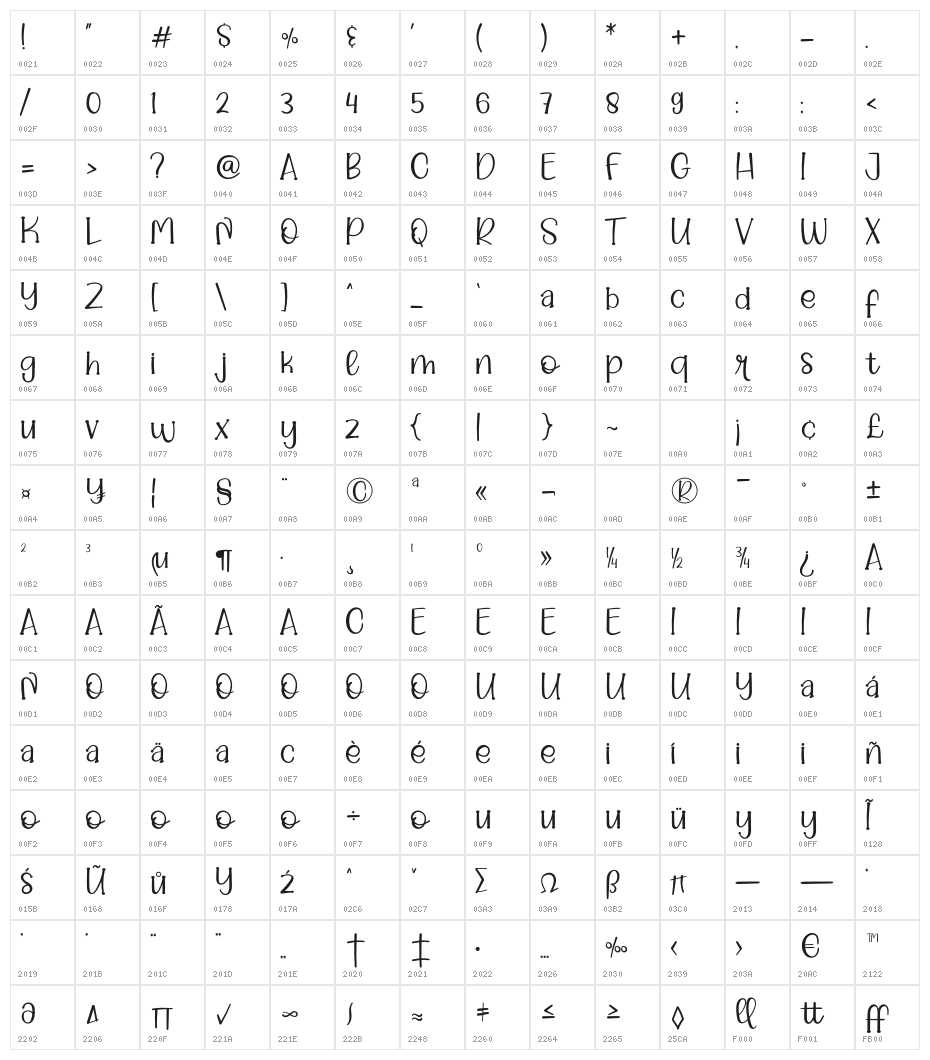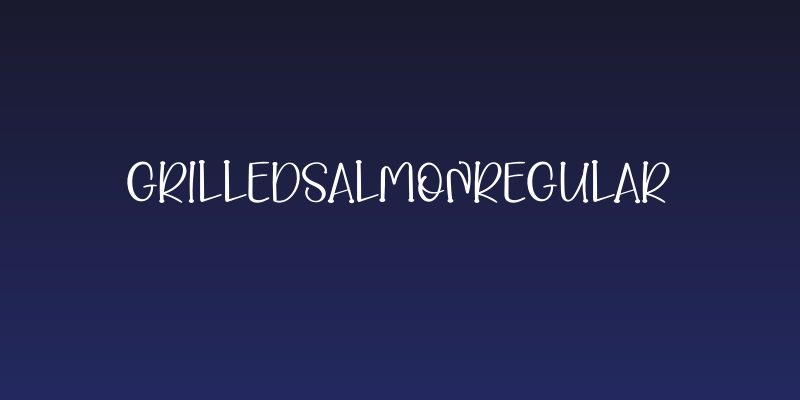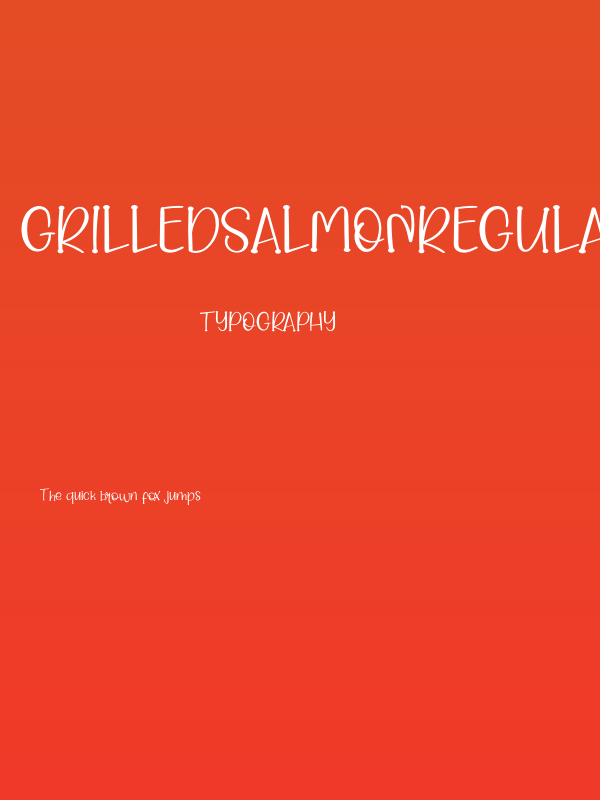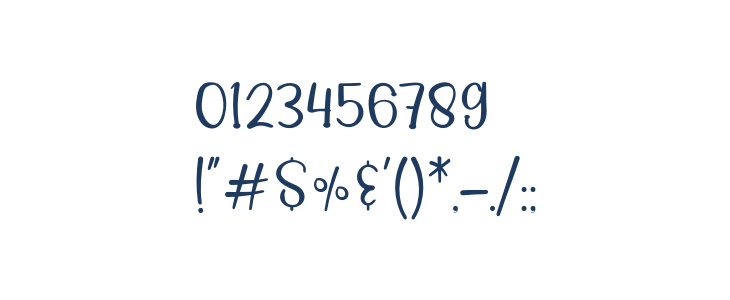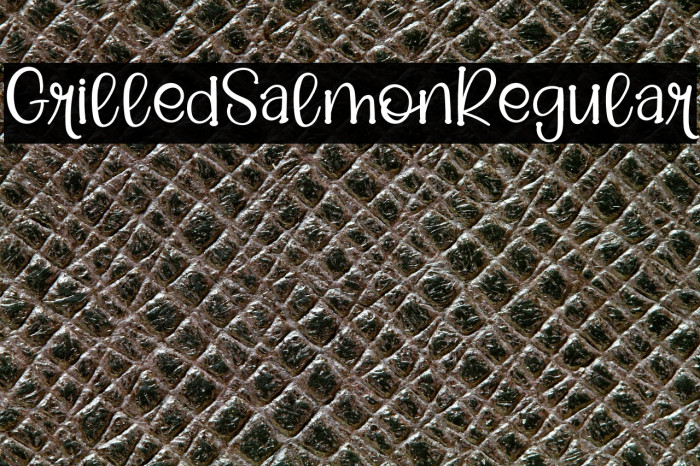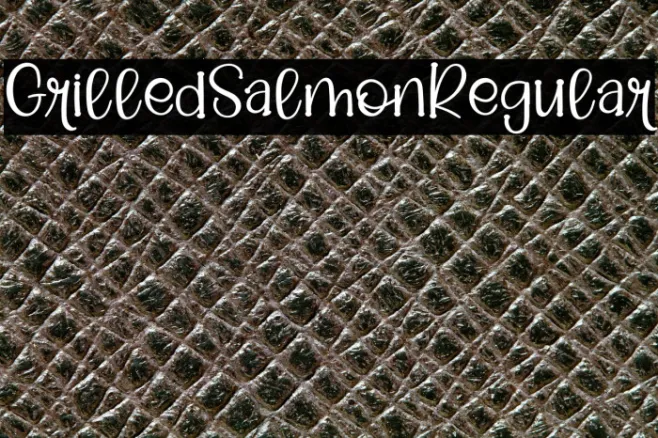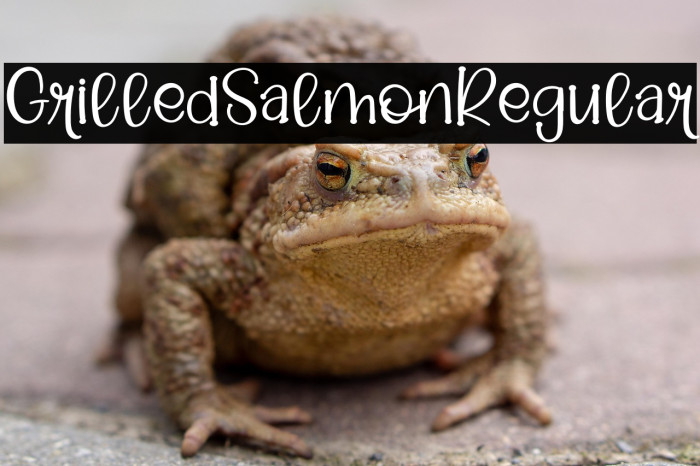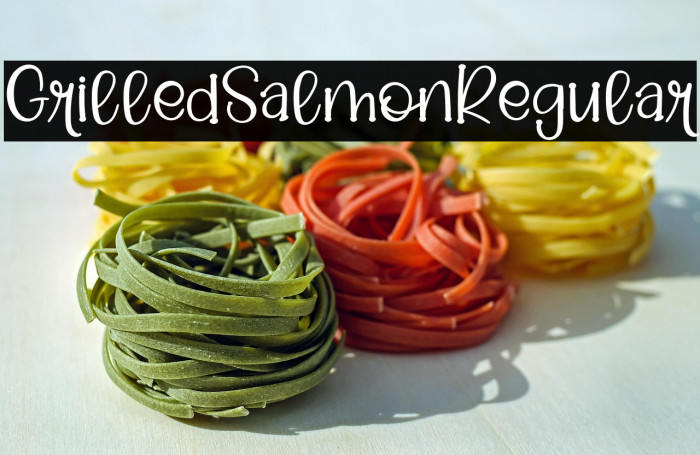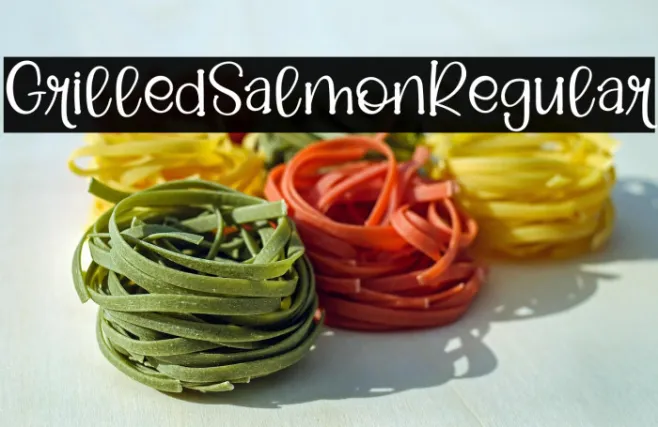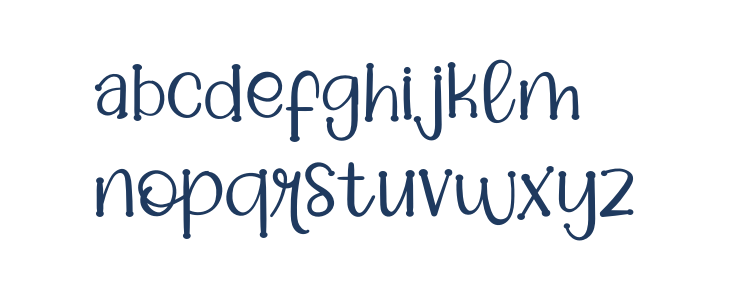
GrilledSalmonRegular Font
GrilledSalmonRegular Description
This playful and whimsical font features a handwritten style with a casual and friendly appearance. The characters are slightly rounded with a consistent stroke width, giving it a smooth and approachable look. The uppercase and lowercase letters maintain a harmonious balance, while the numerals and special characters are designed to complement the overall aesthetic. The font's informal style makes it ideal for projects that require a personal touch, such as invitations, greeting cards, or playful branding materials.
| Proposed Projects | Ideal for invitations, greeting cards, playful branding, and personal projects. |